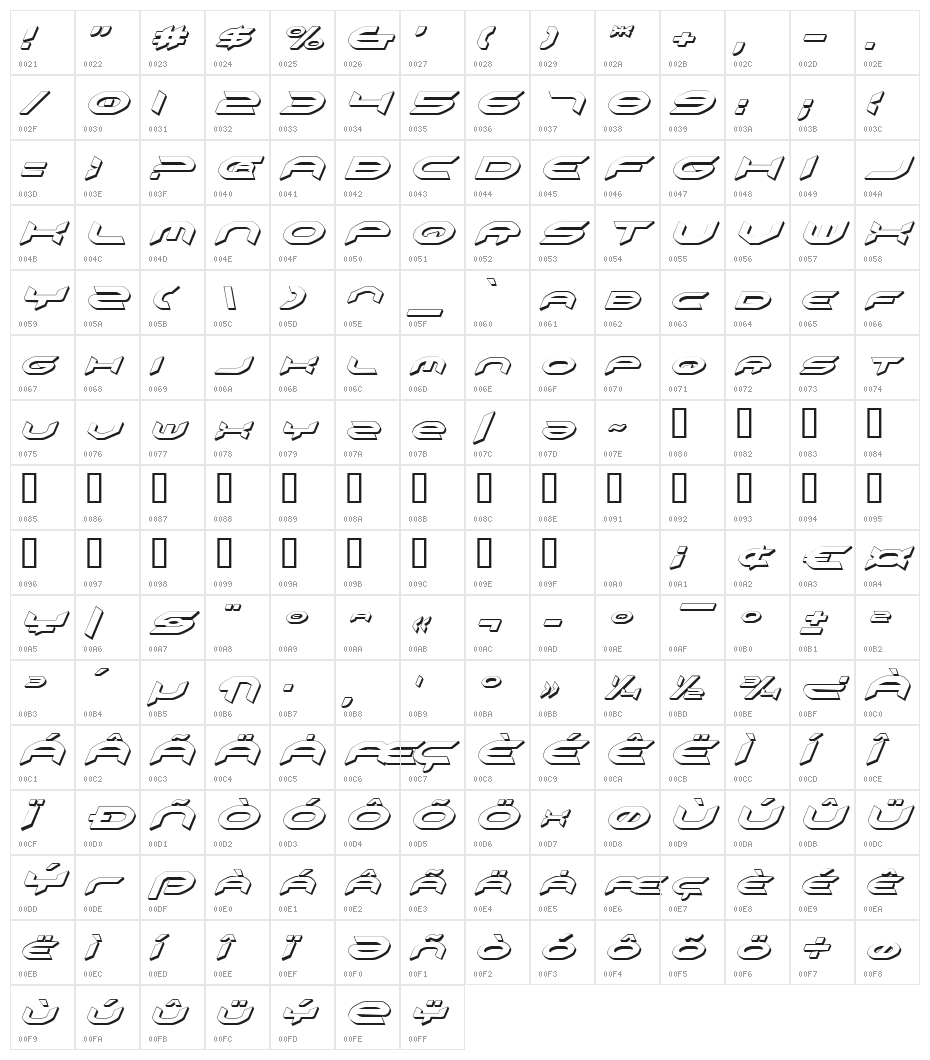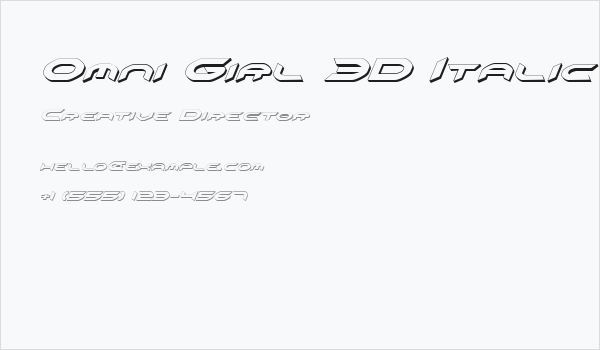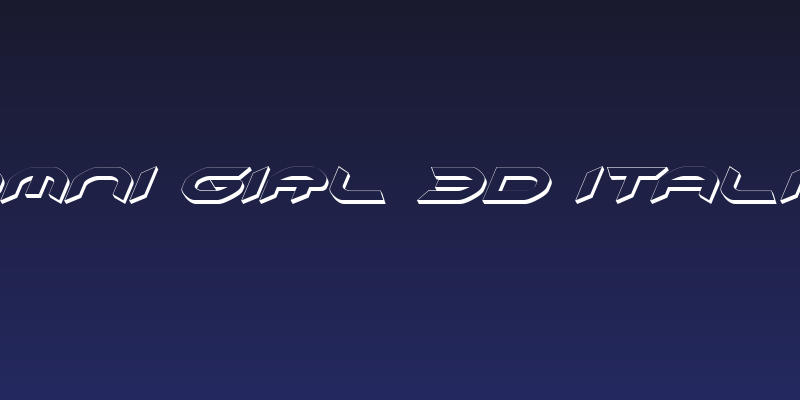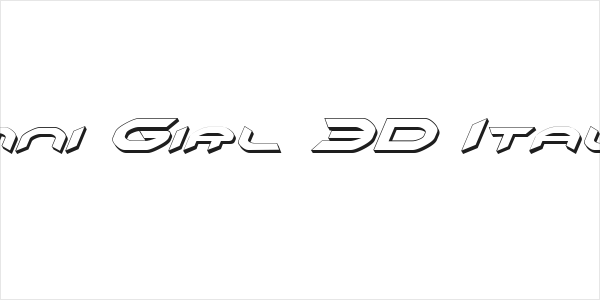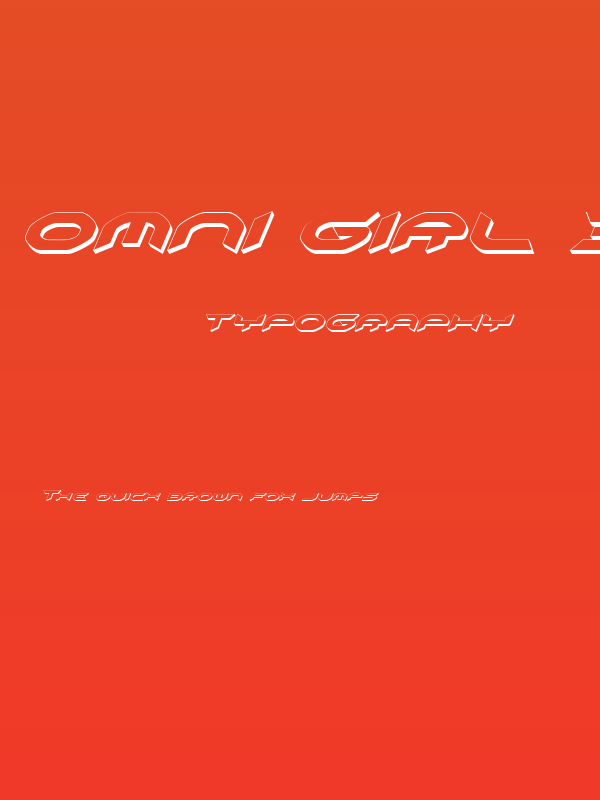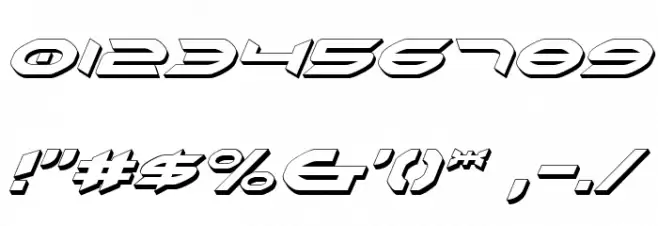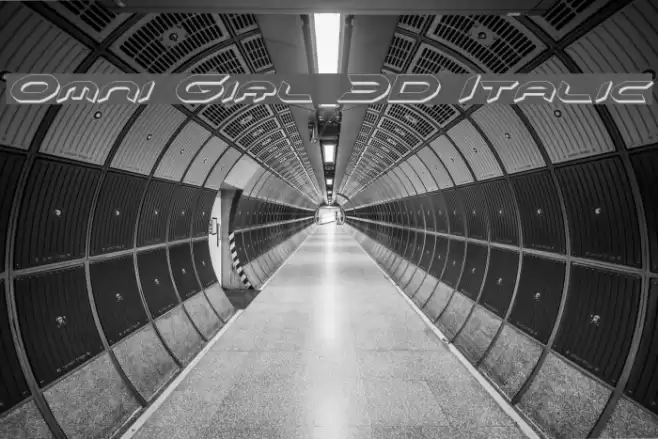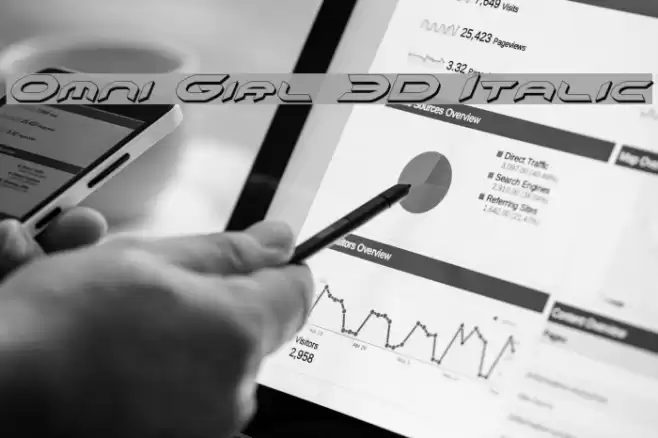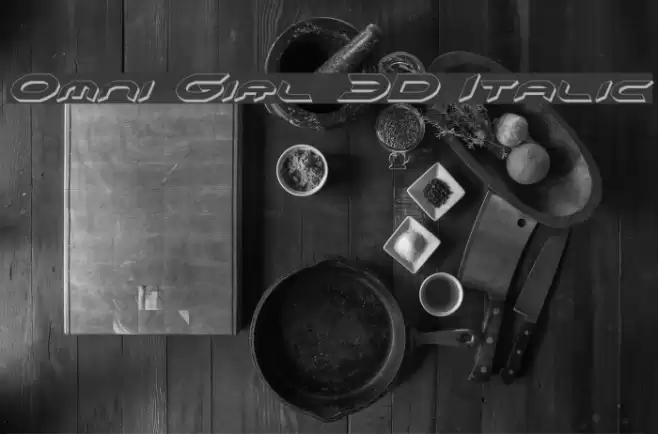
Omni Girl 3D Italic Font
Omni Girl 3D Italic Description
This font features a bold, futuristic design with a 3D effect that gives each character a sense of depth and dimension. The italicized style adds a dynamic and forward-moving feel, making it ideal for projects that require a modern and edgy look. The characters are well-defined with sharp angles and clean lines, creating a striking visual impact. The font includes a full set of uppercase and lowercase letters, numbers, and a variety of special characters, ensuring versatility for different design needs.
| Proposed Projects | Ideal for sci-fi themed designs, video game graphics, tech branding, and modern advertising. |